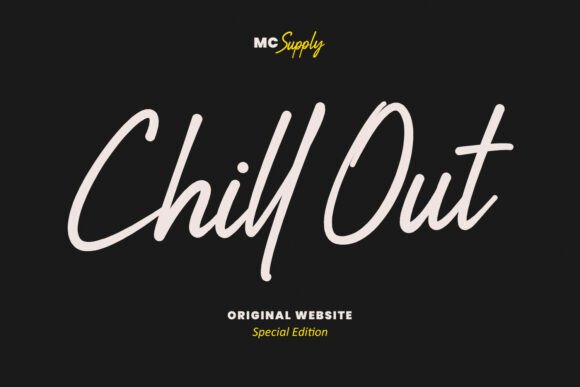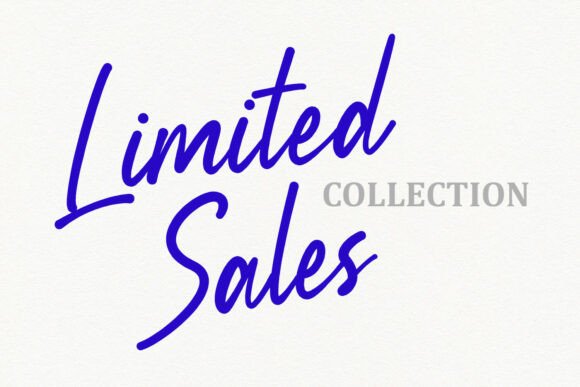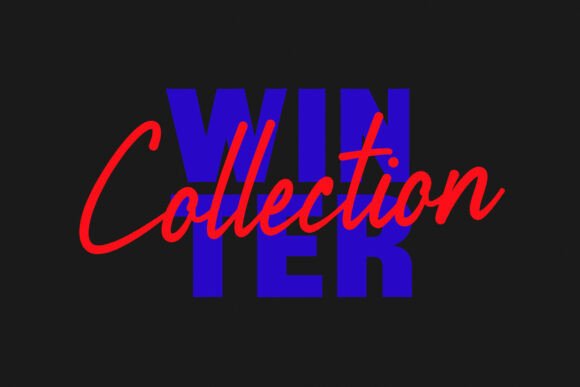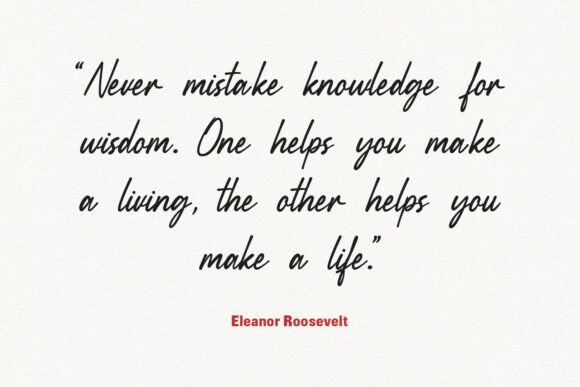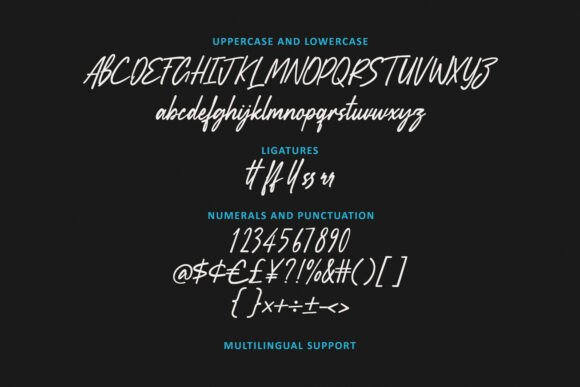
Elevate Your Designs with the Authentic Charm of Bafferry Script Font
In the world of typography, a font can make or break the aesthetic of a design. For those seeking a blend of casual elegance and modern street style, the Bafferry Script Font is an exceptional choice. This premium handwritten script font is designed to bring a personalized, high-end feel to any project, making it a versatile tool for designers and crafters alike.
The Unique Characteristics of Bafferry Script Font
Bafferry Script Font stands out with its natural brush-like strokes and fluid flow, giving it an authentic, human touch. This font is not just a collection of letters; it’s an expression of movement and personality. The strokes are confident and varied, mimicking the natural flow of handwritten script. This results in a dynamic and engaging visual experience that captures the viewer’s attention.
One of the key advantages of the Bafferry Script Font is its versatility. It can seamlessly transition from a high-end fashion magazine cover to a casual coffee shop menu, and from logo designs to social media graphics. This adaptability makes Bafferry an invaluable asset for designers who work on a wide range of projects. Whether you’re aiming for a luxurious look or a more laid-back vibe, Bafferry Script Font adjusts effortlessly to meet your design needs.
Ideal Applications for Bafferry Script Font
Bafferry Script Font shines in various design applications, including:
- Branding & Logo Design: Especially for personal brands, photographers, and influencers looking for a distinctive and memorable logo.
- Wedding Stationery & Invites: Adds a touch of elegance and romance to wedding invitations, save-the-dates, and other wedding-related designs.
- Fashion & Lifestyle Photography Overlays: Elevates the look of photography overlays, giving them a stylish and contemporary feel.
- Social Media Graphics: Perfect for creating engaging and trendy social media content that stands out.
Pairing Bafferry for Maximum Impact
To truly make the most of the Bafferry Script Font, consider pairing it with a bold, heavy sans-serif font. This combination creates a dynamic contrast that is both professional and trend-conscious. The elegance of Bafferry complements the starkness of a sans-serif, resulting in a balanced and visually appealing design. This pairing is particularly effective for headlines and body text, creating a hierarchy that guides the viewer’s eye through your design.
Bringing Authenticity to Your Designs
In a digital age where uniformity can be the norm, Bafferry Script Font offers a breath of fresh air with its authentic human movement. It’s perfect for designers and crafters looking to infuse their projects with personality and charm. Whether you’re designing apparel, luxury packaging, or high-impact social media graphics, Bafferry brings a sense of life and energy to the digital canvas.
Bafferry Script Font is more than just a font; it’s a design statement. It offers the perfect blend of elegance and modernity, making it an indispensable tool for creatives. With its versatility, unique characteristics, and wide range of applications, Bafferry is poised to elevate your designs to new heights. So, if you’re looking to add a touch of authentic charm and high-end feel to your projects, look no further than the Bafferry Script Font.
Embrace Bafferry Script Font in your next design project and experience the difference it can make. Elevate your designs, make them more engaging, and give them the personalized touch that sets them apart from the rest.